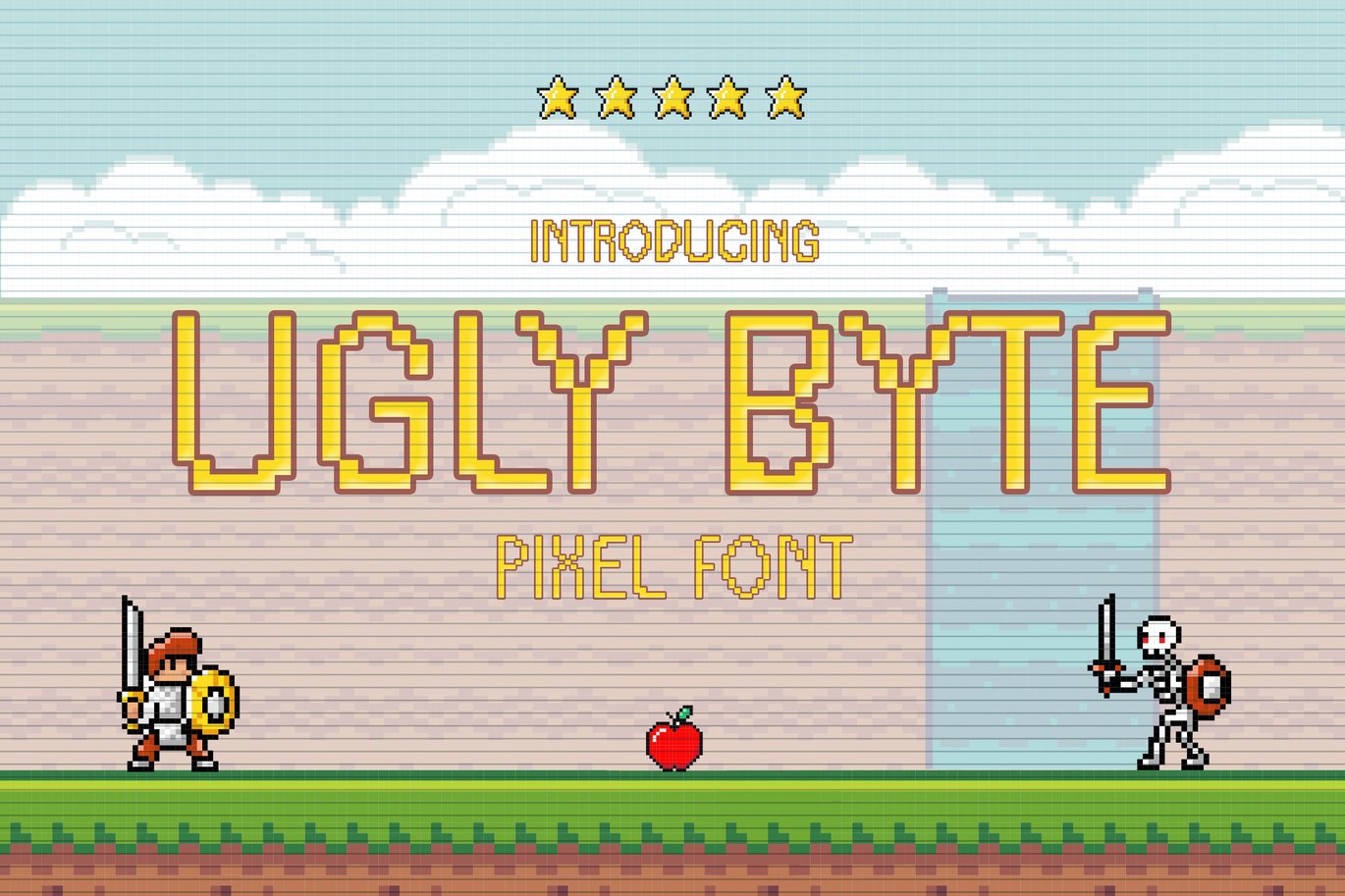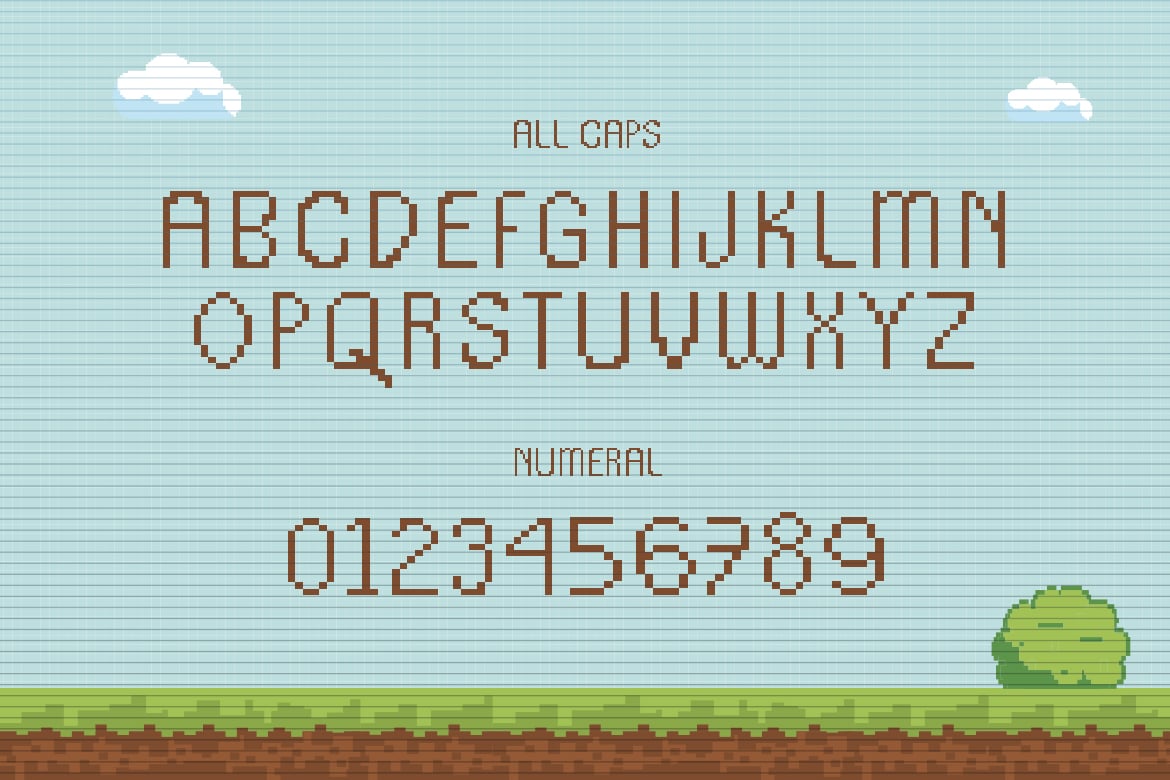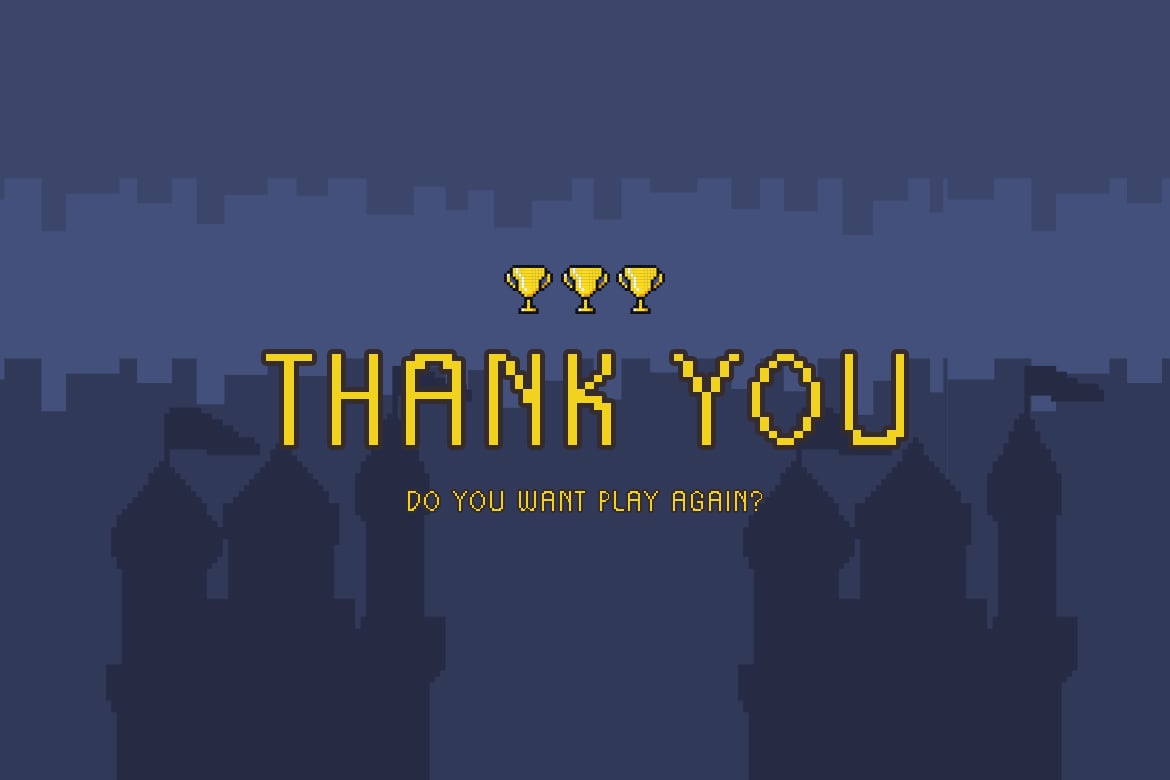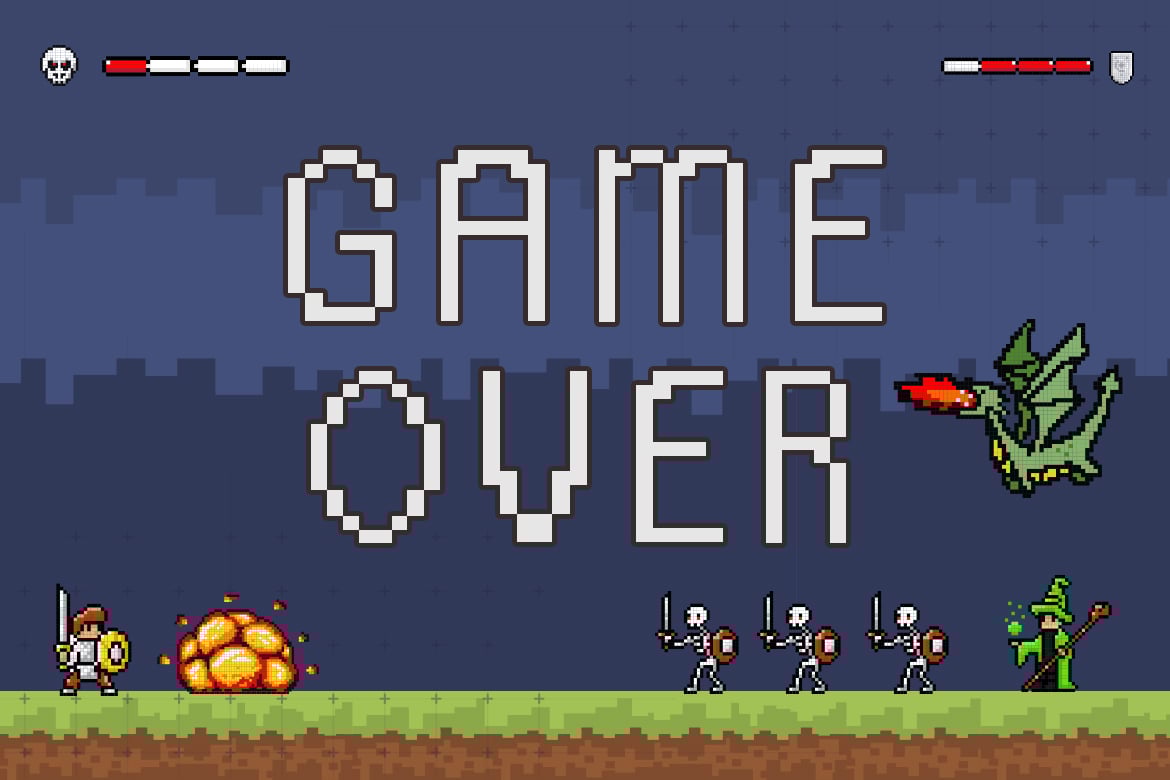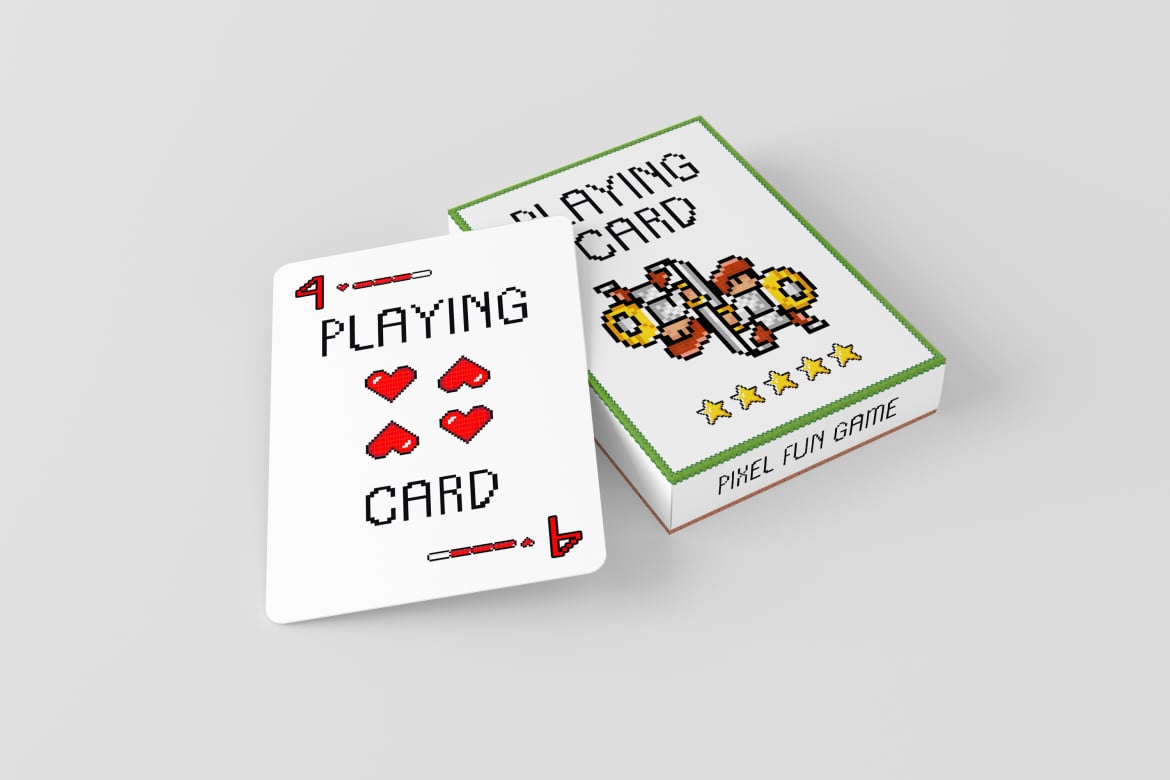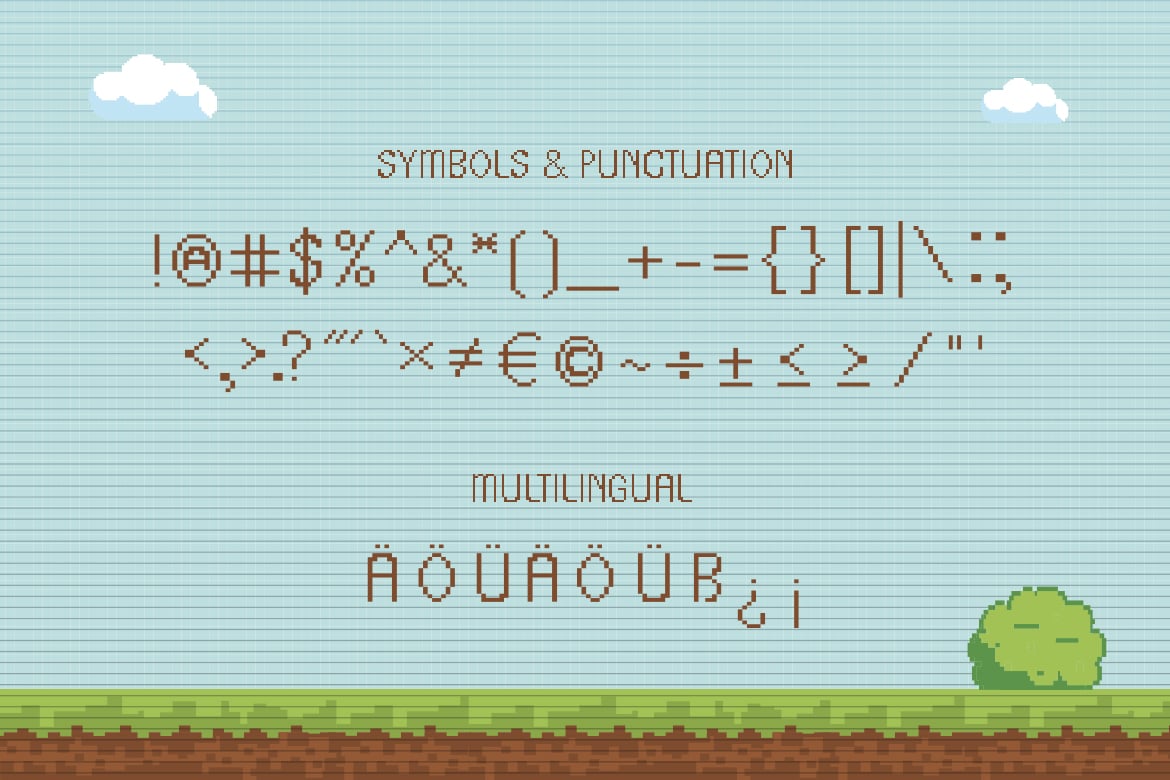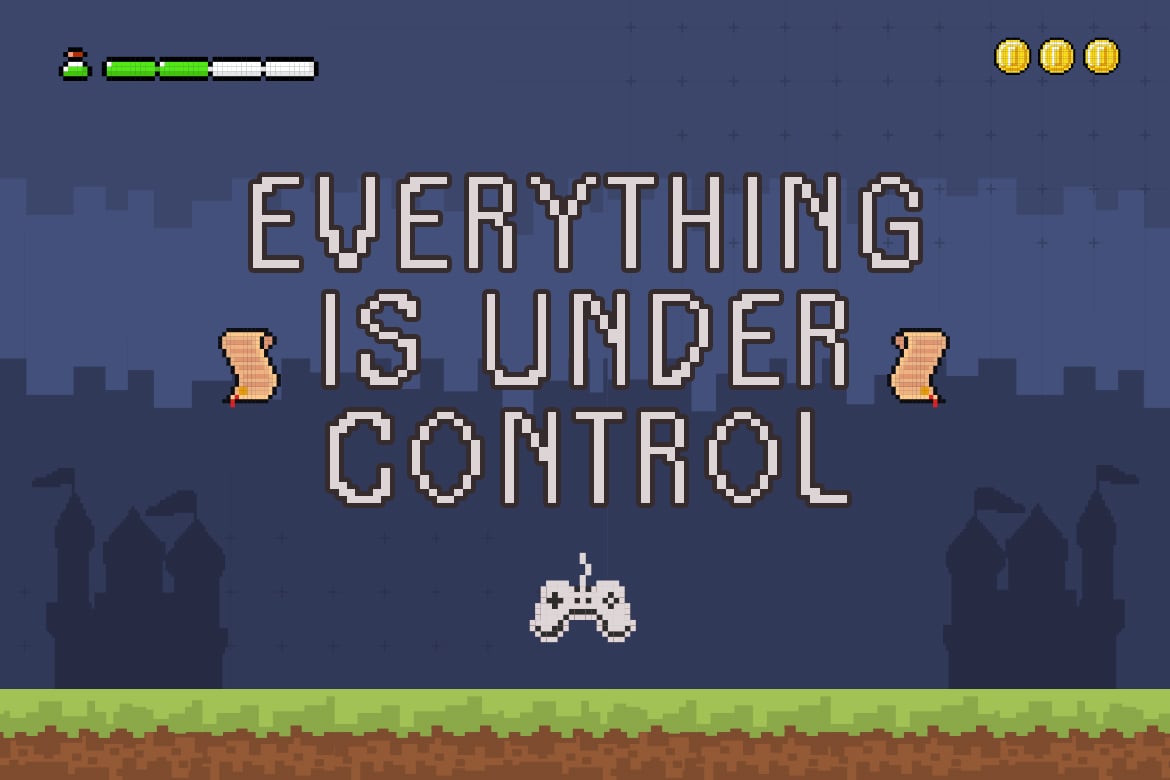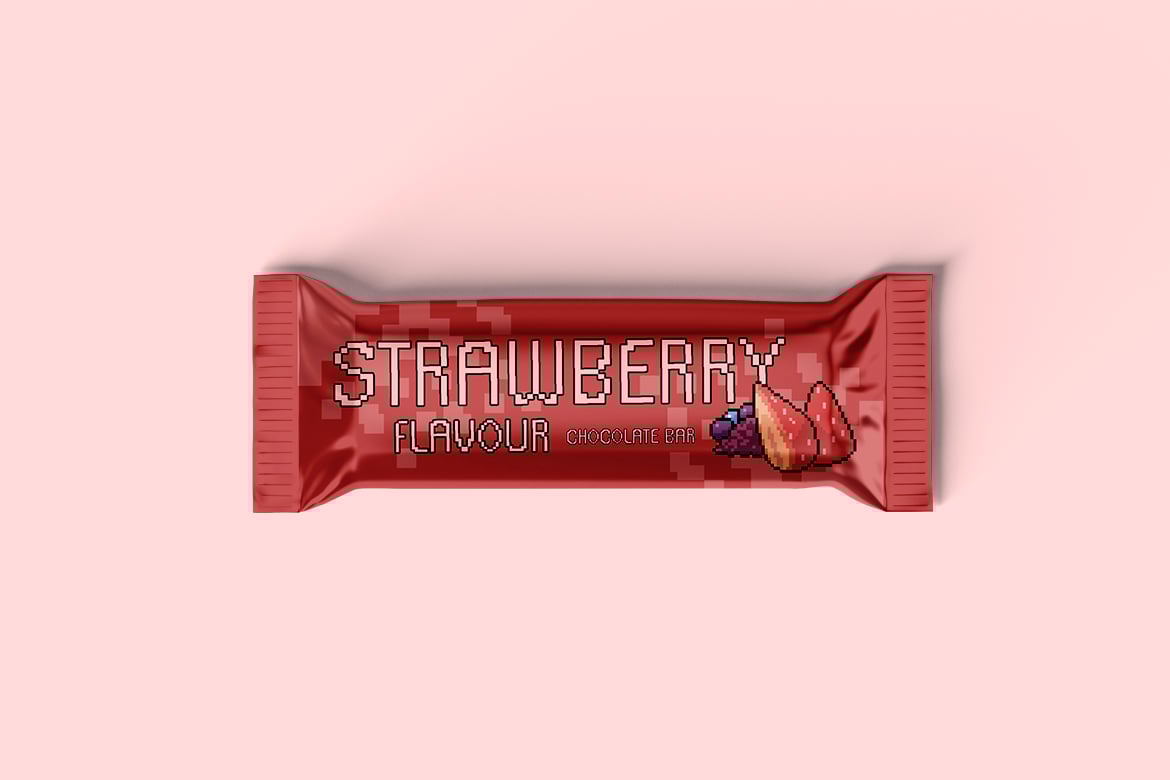
Ugly Byte – Pixel Font
Ugly Byte is a unique pixel display font. The possibilities for this font are endless, you can use it for mobile apps, games, retro design projects, and much more.
– All Caps
– Multilingual